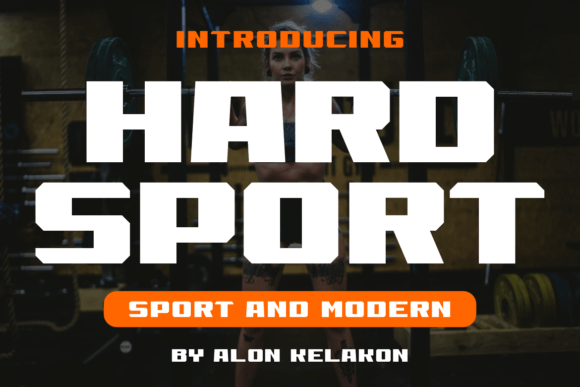
Journey into a world of vintage charm and sporty elegance with Hard Sport Font, the sans serif font that ignites nostalgia and elevates your designs to new heights. Created by the visionary alonkelakon, this font family captures the essence of retro aesthetics, inviting you to infuse your designs with a timeless appeal.
Hard Sport Font is not just a collection of letters; it's a gateway to a bygone era, where classic sports jerseys, varsity jackets, and vintage signage ruled the day. Its carefully crafted characters exude a playful spirit, evoking memories of simpler times and capturing the essence of athleticism and camaraderie.
With Hard Sport Font, you can effortlessly add a touch of retro magic to your designs. Its bold and slightly condensed letterforms create a visually striking impact, making your words stand out with confidence and character. Whether you're designing logos, posters, apparel, or website graphics, Hard Sport Font will add an instant touch of authenticity and vintage charm.
But Hard Sport Font is more than just a nostalgic delight; it's a versatile font that adapts effortlessly to a wide range of design styles. Its sans serif design ensures clarity and readability, even at small sizes, making it perfect for branding, headlines, and body text. Experiment with different weights and sizes to create a typographic hierarchy that guides the reader's eye and conveys your message with impact.
And let's not forget about the letter Q, the unsung hero of the alphabet. With Hard Sport Font, the letter Q takes center stage, boasting a unique and captivating design that demands attention. Its elongated tail and distinctive shape add a touch of intrigue and personality to your text, making it the perfect choice for logos, monograms, and display typography.
So, whether you're a seasoned designer seeking a touch of nostalgia or a creative entrepreneur looking to make a statement, Hard Sport Font is your perfect companion. Download it today and unlock the power of vintage charm, sporty elegance, and unforgettable typography. Embrace the spirit of Hard Sport Font and let your designs shine with timeless appeal.